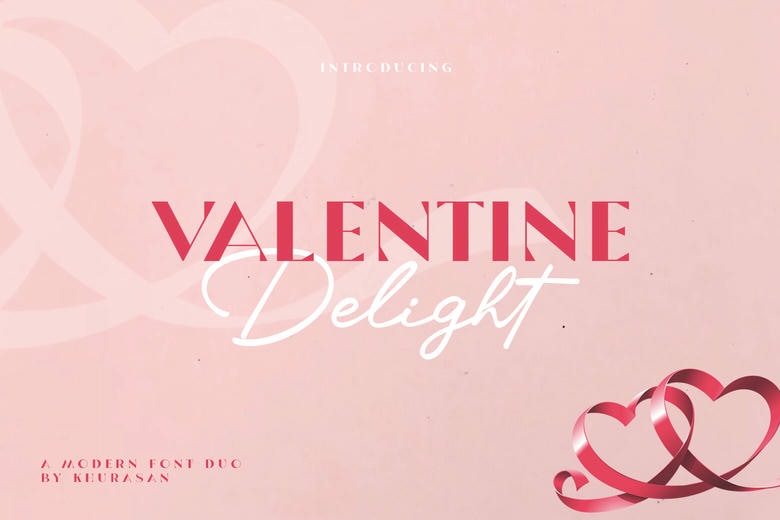
Valentine Delight Font Duo
Valentine Delight – a two-romantic font typeface that helps to win hearts and share love stories with letters. A combination of a graceful script that moves in the style of handwritten love notes and a clean and modern serif, Valentine Delight offers balance and clarity. The combination of these elements composes the ideal balance between feeling and sophistication that any design will be welcoming, personal, and memorable.
You can use Valentine Delight to create wedding invitations, valentine cards, romantic branding, social media quotes, or to make love-themed packaging and it will add a sense of passion and charm that will instantly appeal to the heart of the viewer.